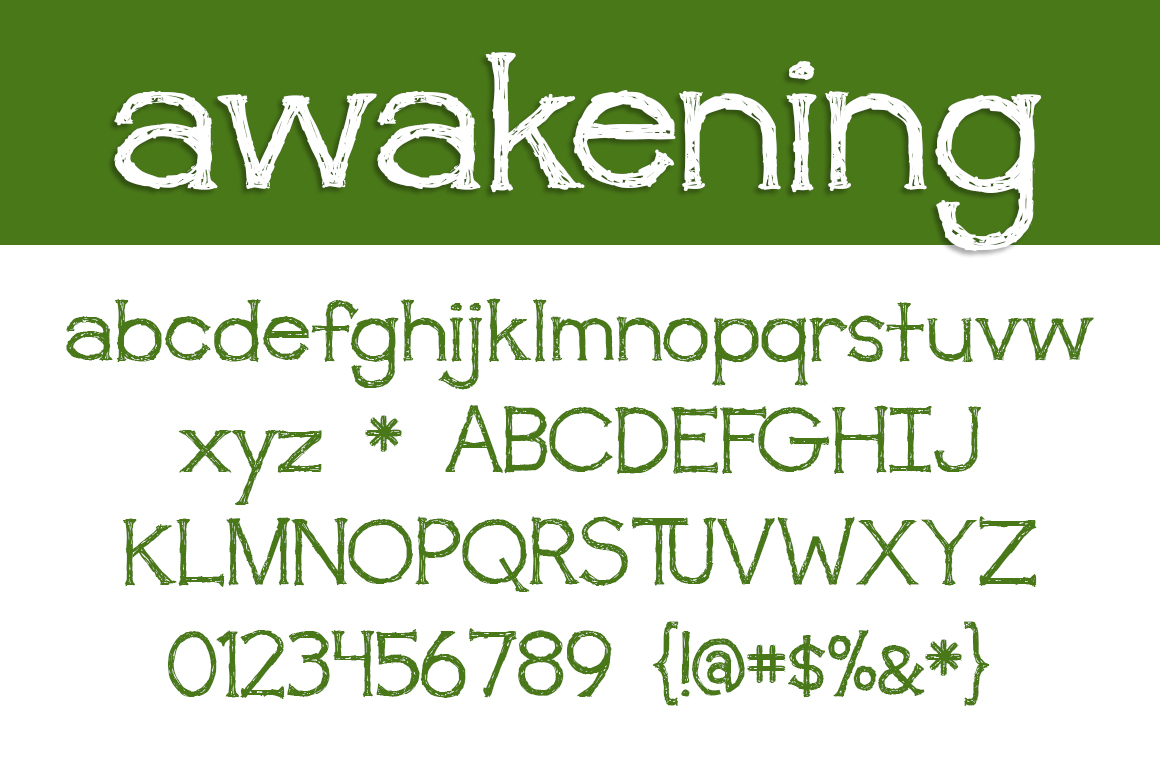
The Awakening Font: A Sketchy Charm for Your Designs
I’ll never forget the design project that led me to discover the Awakening Font. I was working on a whimsical craft project for a client who wanted a custom logo with a hand-drawn feel. As I scoured font libraries and design resources, I stumbled upon this hidden gem – a sketchy font with just a little bit of character. It was love at first sight! 💕
An Honest Review of Awakening Font
- Unique, hand-drawn aesthetic that adds a touch of personality to any design
- Perfect for crafty projects, logos, and branding materials
- Works well for both digital and print applications
- Easy to read, even at smaller font sizes
- Supports OpenType features and glyphs for added versatility
While I adore the Awakening Font, it’s not without its quirks. For instance:
- Some characters may appear a tad inconsistent in terms of line width and texture 🤔
- Not ideal for body text or lengthy paragraphs, as it can be a bit too ornate
- Limited language support, so double-check the character set before using it for multilingual projects
- Explore the various glyphs, stylistic alternates, and ligatures to add visual interest to your design
The Story Behind Awakening Font
According to the font’s creators, the Awakening Font was inspired by the nostalgic feel of hand-drawn signs and advertisements from the early 20th century. The designers aimed to capture the essence of a sketchy, imperfect drawing, infusing the font with a sense of personality and whimsy.
Q: What type of projects is Awakening Font best suited for?
A: Awakening Font is perfect for crafty projects, logos, branding materials, and any design that requires a touch of personality.
Q: Does Awakening Font support OpenType features?
A: Yes, Awakening Font supports OpenType features, including glyphs, stylistic alternates, and ligatures.
Q: Can I use Awakening Font for body text or lengthy paragraphs?
A: While Awakening Font is easy to read, it’s not ideal for body text or lengthy paragraphs. It’s best used for headlines, titles, or short blocks of text.